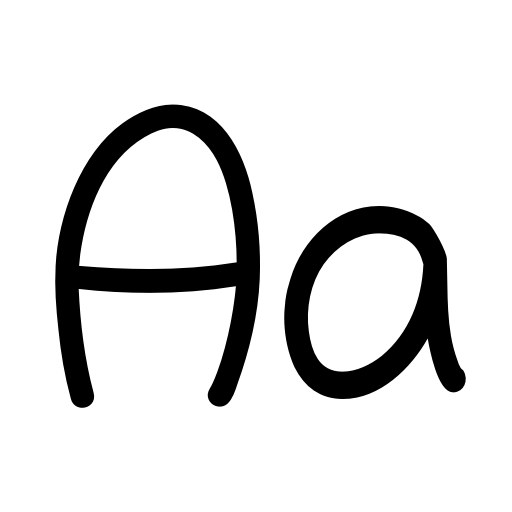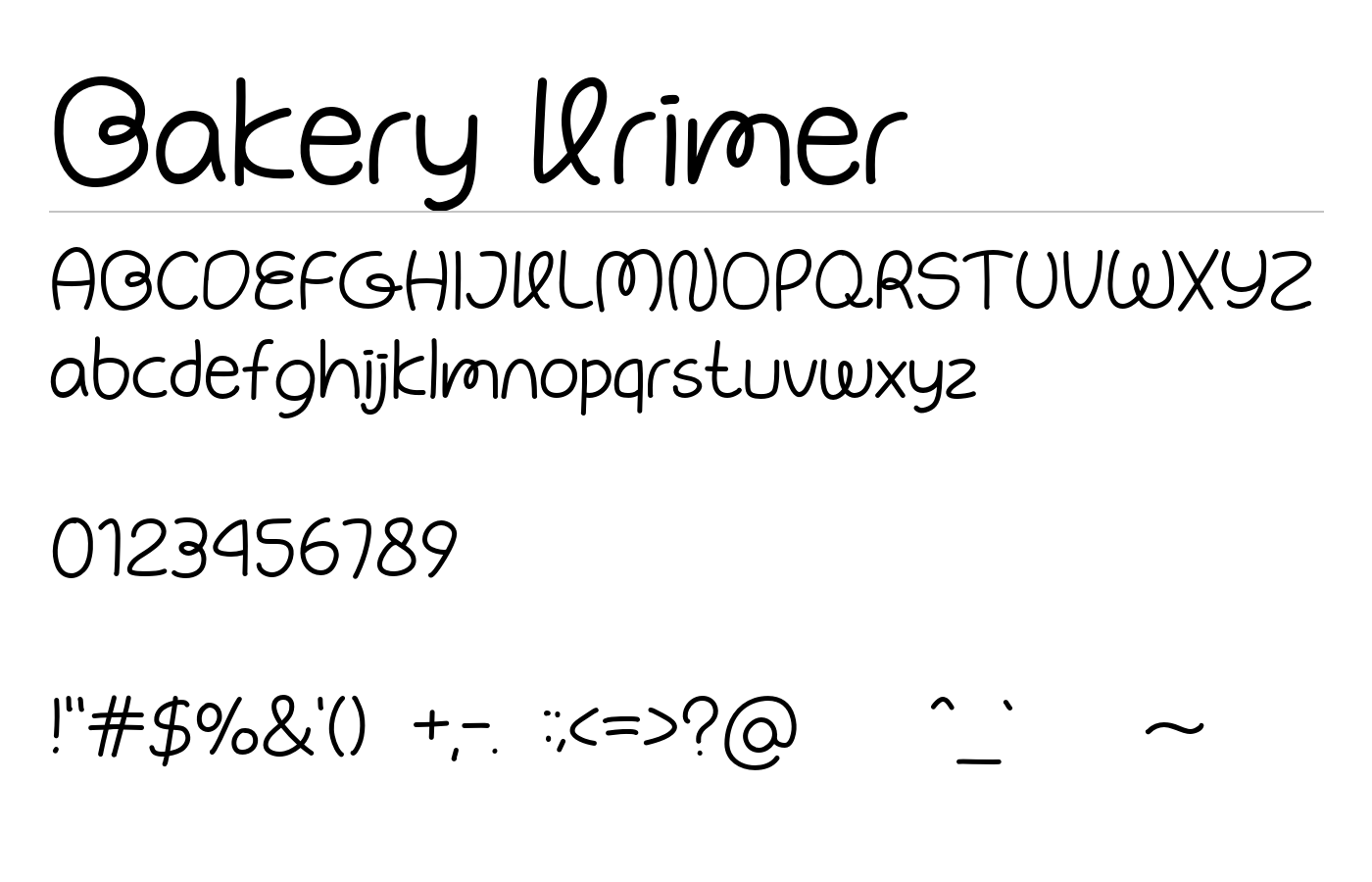
Bakery Krimer is a playful, hand-drawn sans serif font with a light weight and casual charm. Its rounded, slightly uneven letterforms and open structure give it a friendly and approachable feel, making it perfect for creative branding, children’s products, or informal editorial projects. This font works well in headlines and logos where a warm, personal touch is desired.
Bakery Krimer Font
About Bakery Krimer Font
| Font family | Bakery Krimer Font |